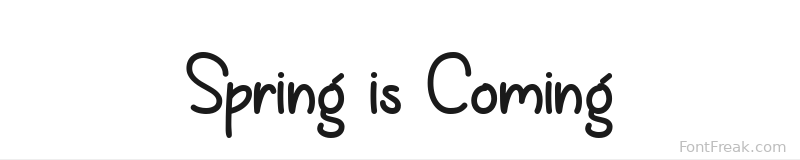
SpringisComing
Spring is Coming
SpringisComing by Misti Hammers is a delightful display font that captures the essence of renewal and warmth associated with the spring season. This font is characterized by its playful and whimsical design, making it a perfect choice for projects that aim to evoke feelings of joy and freshness. The strokes exhibit a medium weight, providing a balanced contrast that enhances readability while maintaining a lighthearted charm. The letterforms feature a slightly irregular baseline, adding a touch of spontaneity, and the spacing is thoughtfully crafted to ensure optimal legibility.
The SpringisComing font is versatile and can be used in a variety of creative applications. It excels in wedding invitations, where its cheerful demeanor can convey a sense of celebration and new beginnings. Additionally, it works wonderfully for seasonal promotional materials, such as flyers for spring festivals or events. Restaurant menus that aim to highlight fresh, farm-to-table offerings can benefit from its inviting style. Furthermore, this font can enhance social media graphics and blog headers, appealing to content creators looking to add a personal touch to their digital presence.
Targeted towards graphic designers, small business owners, and content creators, SpringisComing offers a unique aesthetic that can elevate any project. Its freeware license allows for easy access, making it an ideal choice for those on a budget without compromising on quality.
What sets the SpringisComing font apart is its ability to evoke emotions associated with the spring season while remaining versatile enough for various design needs. This font not only captures attention but also brings a sense of warmth and optimism, making it a delightful addition to any creative toolkit. Don't miss the opportunity to access the SpringisComing font free download and breathe new life into your designs.